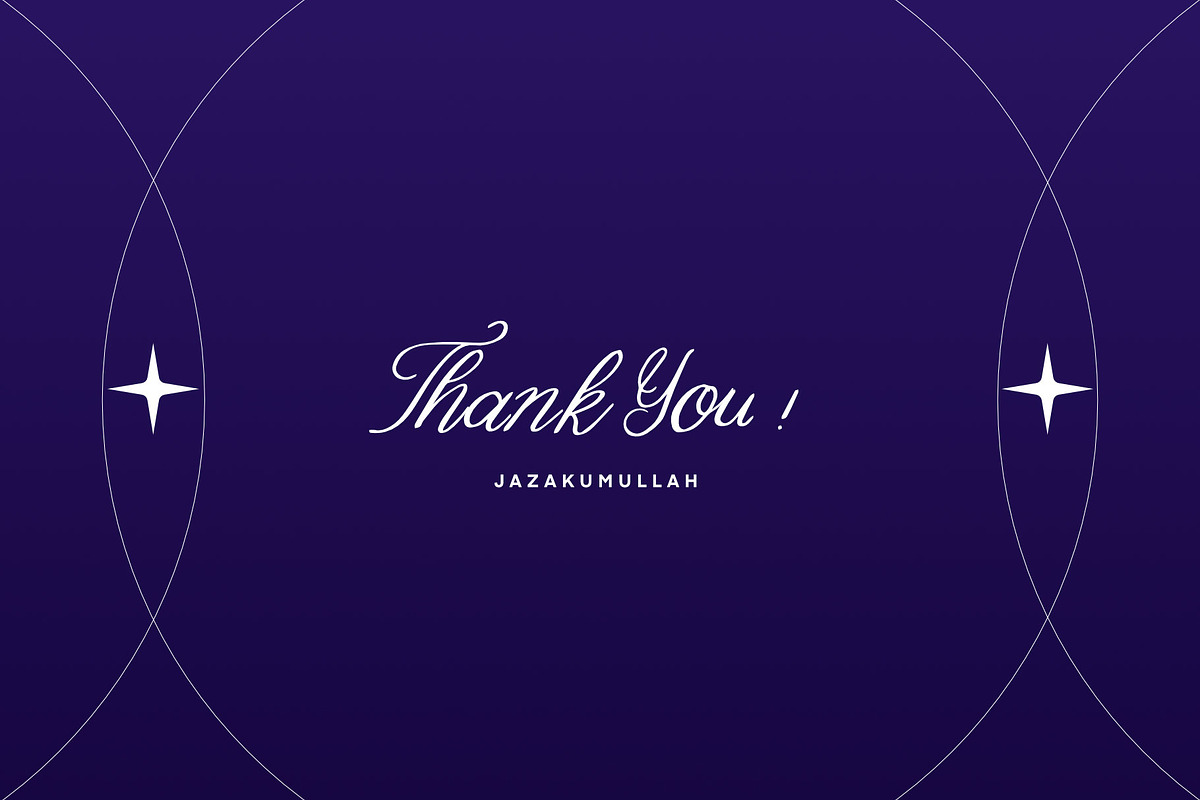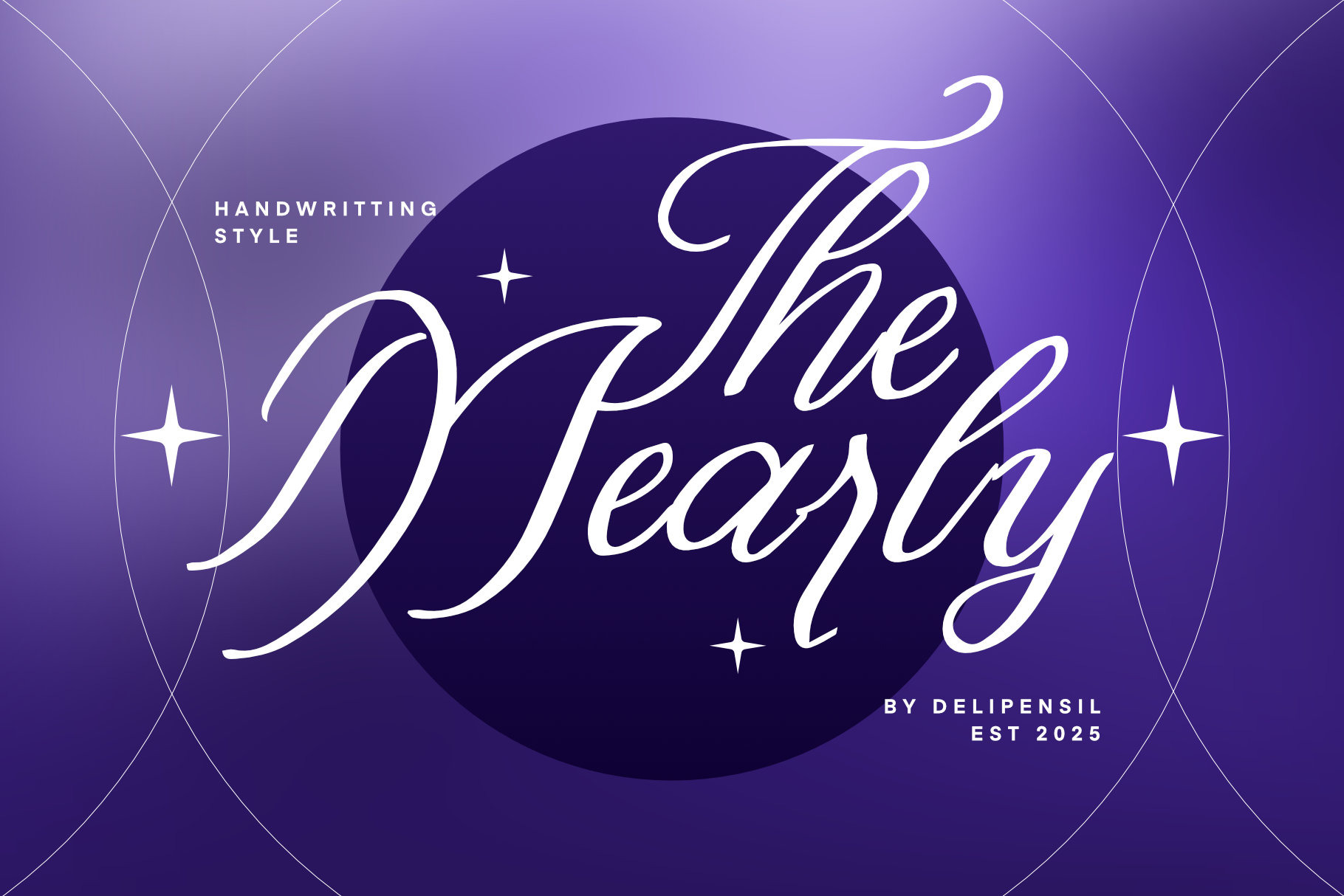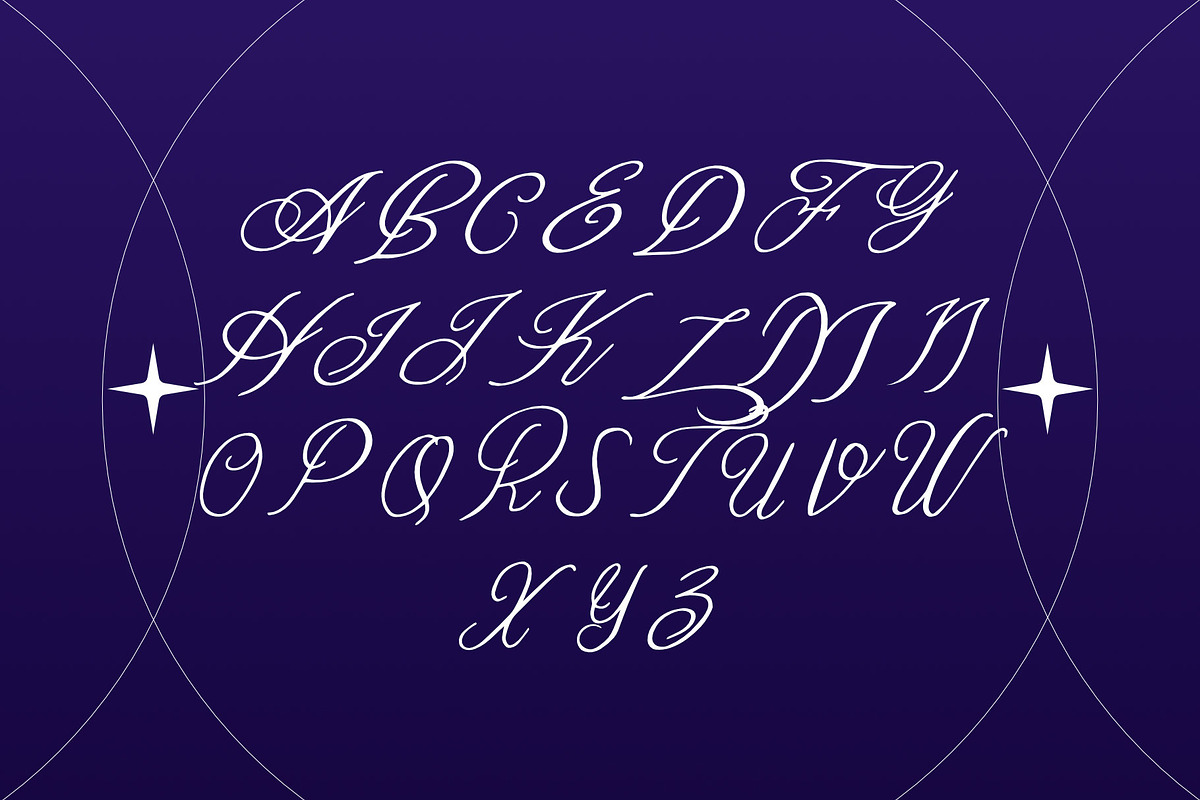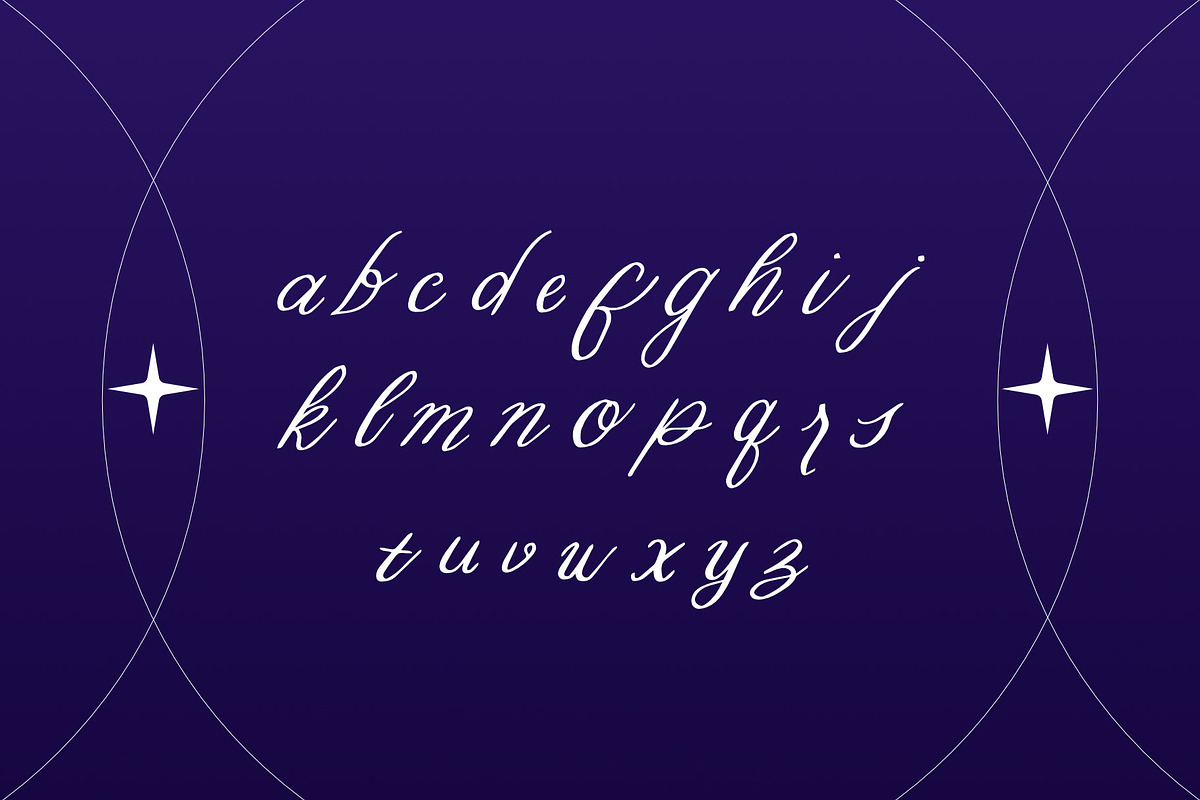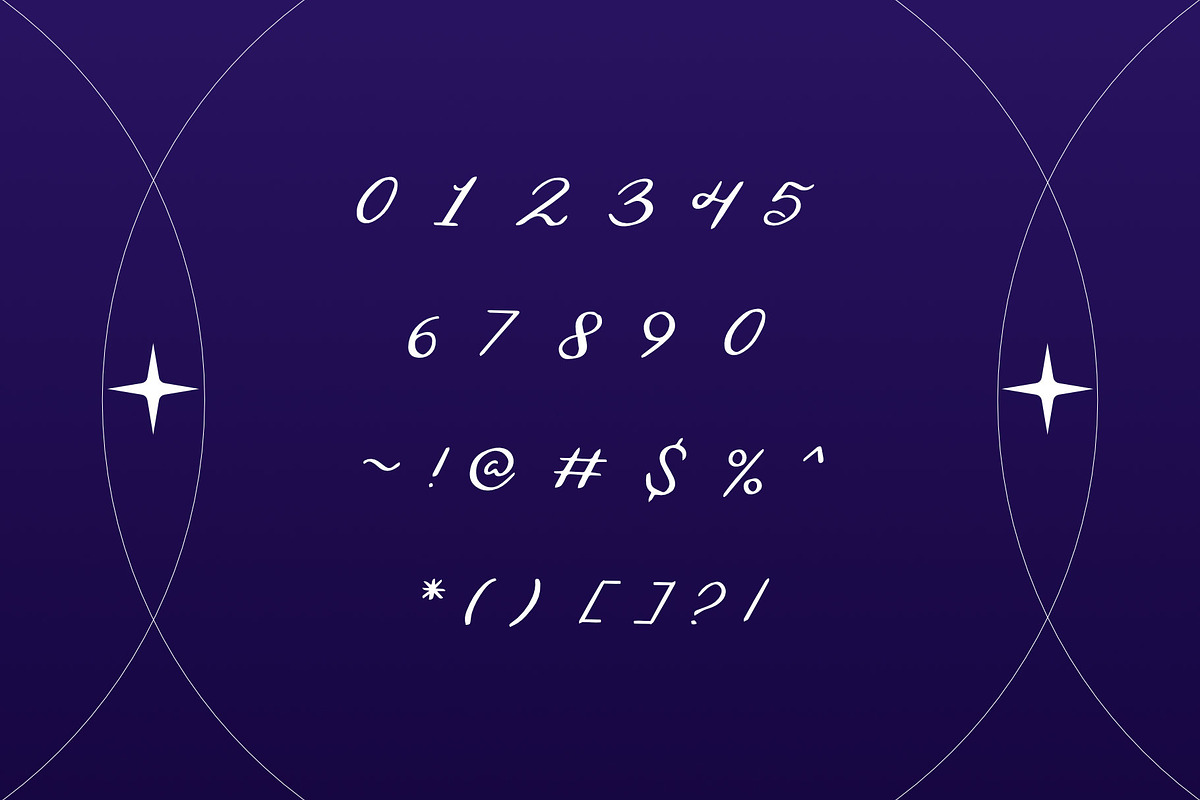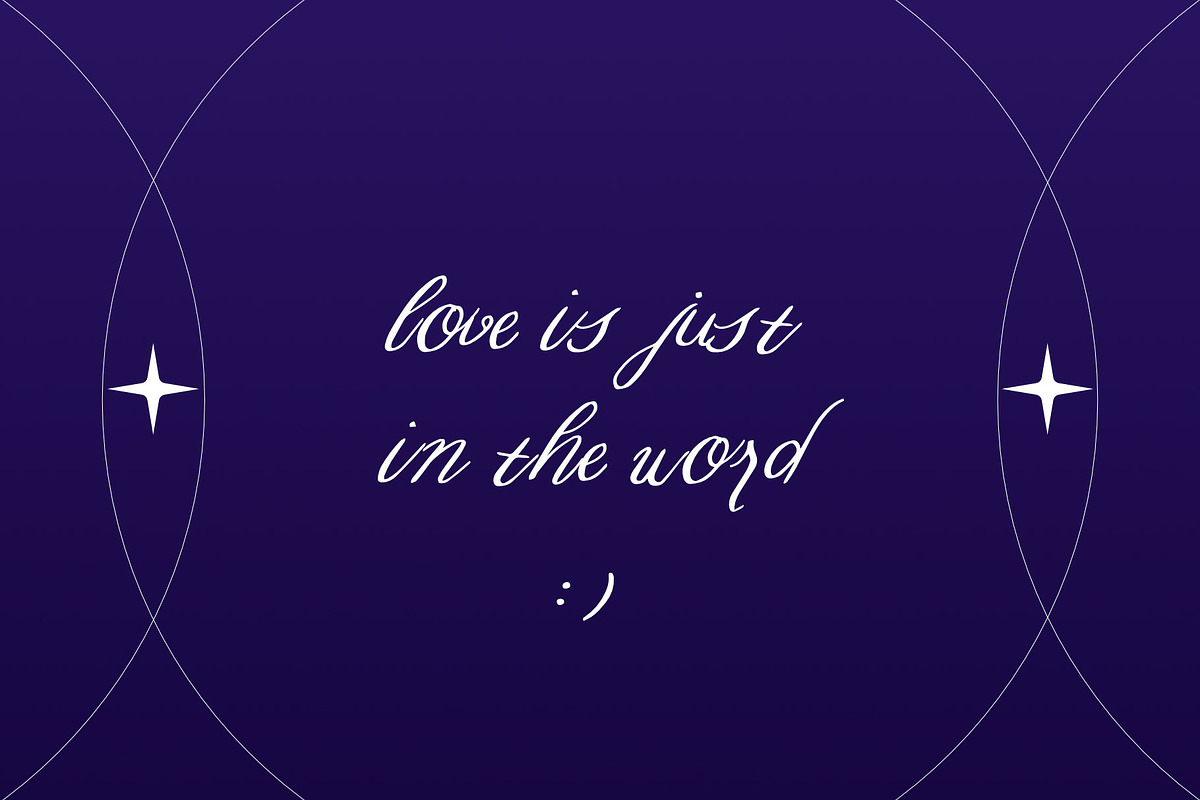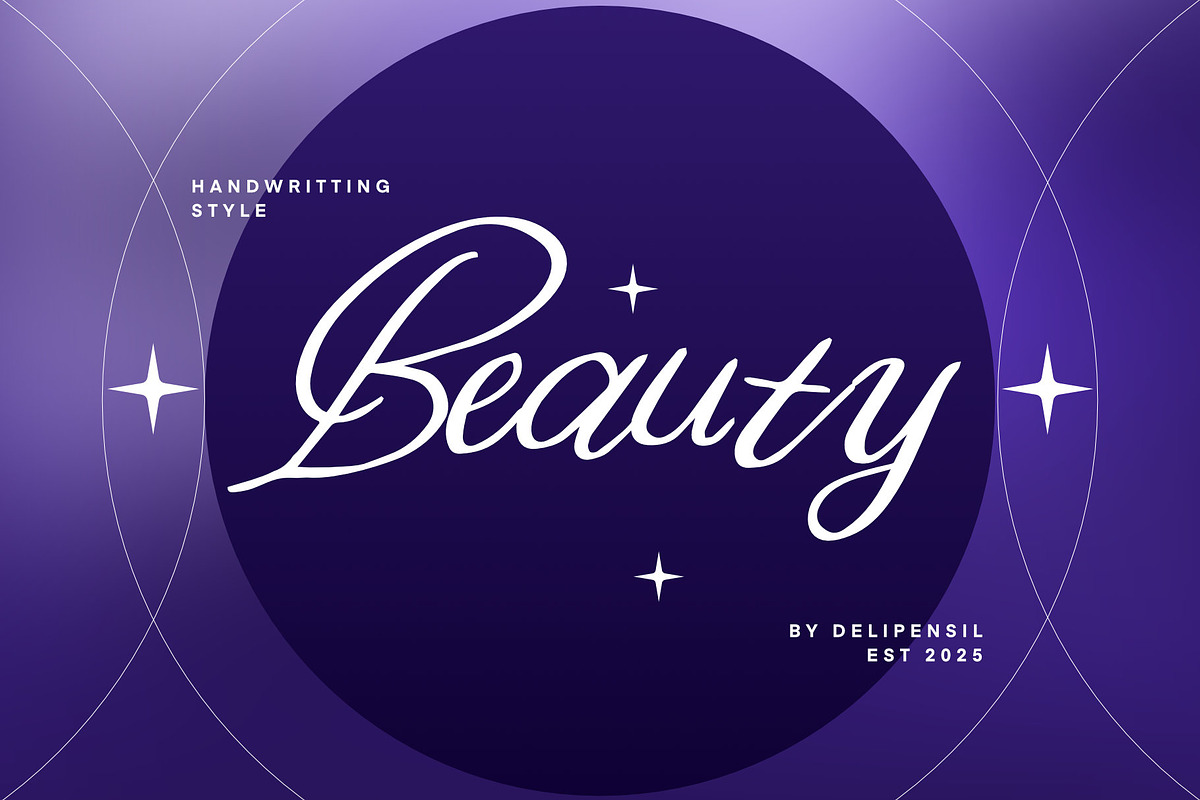
Mearly - Modern Handwritten Typeface
Bismillah, Introduction Mearly - Modern Handwriting Typeface
Mearly is a modern handwritten font designed with an elegant ✨ yet casual style. Crafted to add a personal touch to your designs, this font combines the beauty of handwritten typography with a contemporary and dynamic feel 💫. With smooth, proportional letterforms, Mearly is perfect for a wide range of design needs, from invitations 💌, logos, to branding projects or promotional materials 📈.
This font comes with a rich set of characters and supports multiple languages 🌍, making it versatile for use in various creative projects. Whether you're working on digital or print designs, Introduction Mearly will bring a warm and professional touch to your work 🎨. Make your designs stand out with the elegant flair of Mearly!